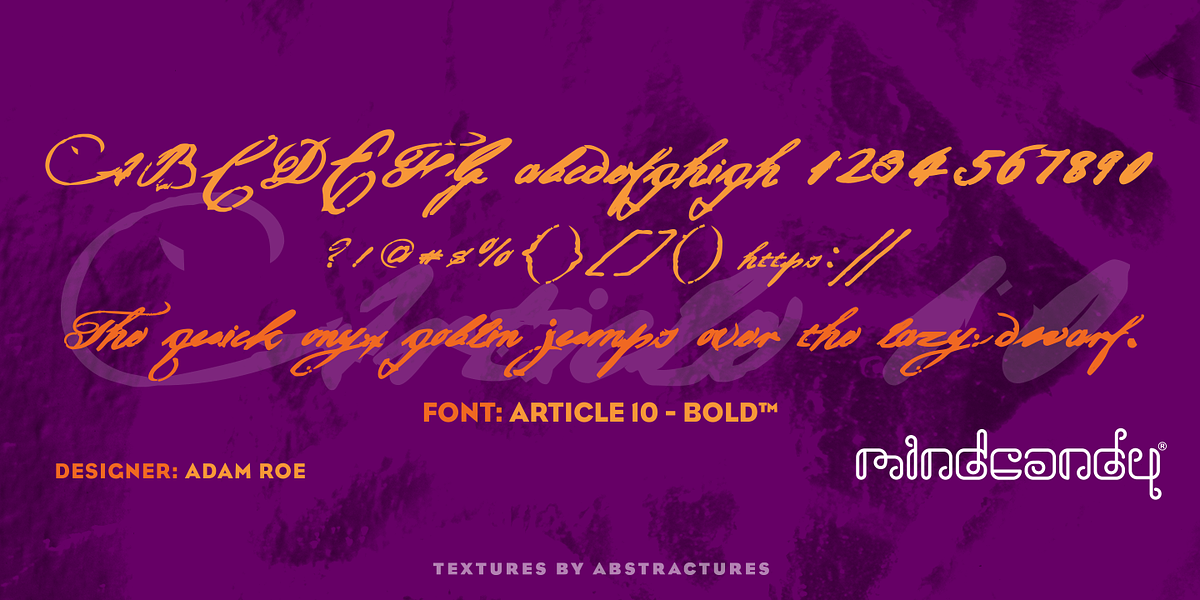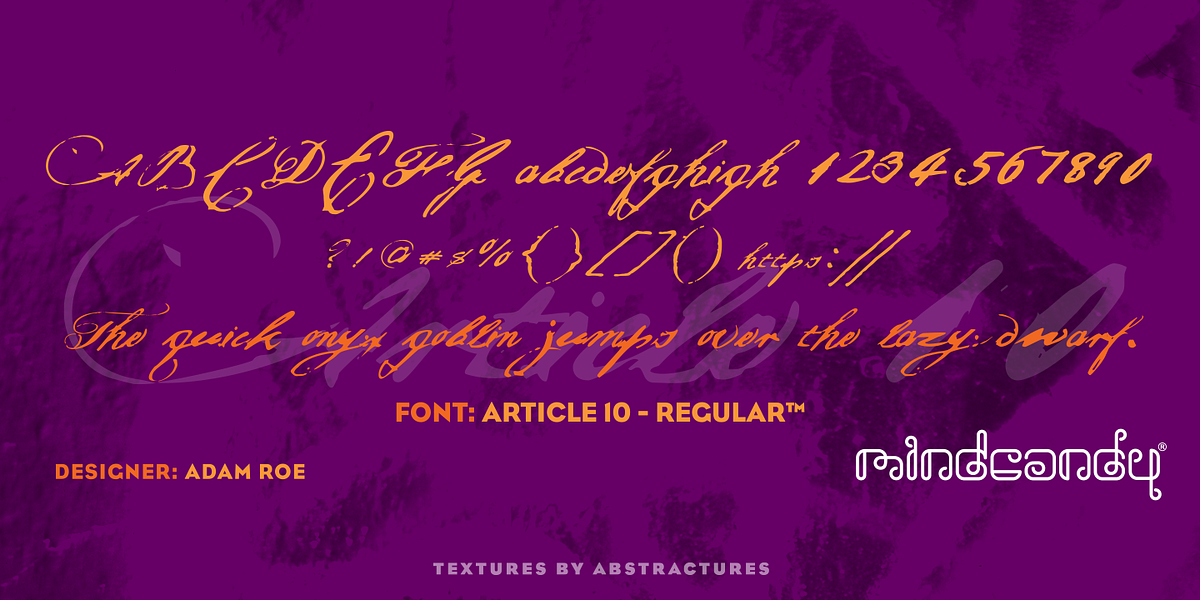
Article10™
Article10™ is a grunge script font designed by Adam Roe. It's inspired by 19th-century handwriting styles and evokes a sense of history and roughness. The font comes in two weights: Regular and Bold. Its unique character makes it suitable for branding, headlines, and editorial design.